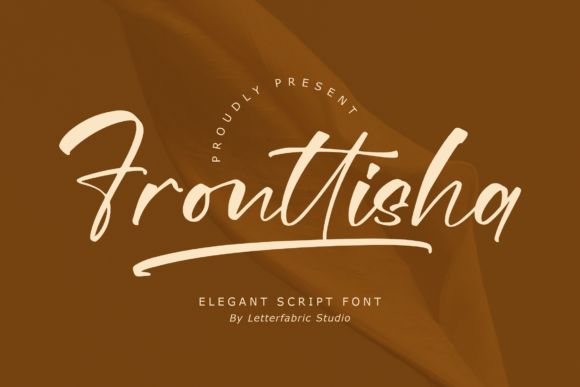
Step into the world of Fronttisha, a captivating script font that will leave you breathless. This elegant creation from Letterfabric Studio is not just a font; it's an experience that will transform your designs into works of art.
Fronttisha's delicate curves and graceful swashes evoke a sense of timeless sophistication. It's the perfect choice for branding projects, homeware designs, product packaging, and any other project where you want to add a touch of luxury and refinement.
Imagine your logo, etched in Fronttisha's flowing script, becoming an iconic symbol of your brand. Your homeware designs will exude elegance, your product packaging will demand attention on shelves, and your quotes and posters will become conversation starters.
Fronttisha is more than just a font; it's a versatile tool that empowers you to express your creativity in countless ways. Create stunning shopping bags that turn heads, design t-shirts that make a statement, or craft book covers that captivate readers.
The possibilities are endless with Fronttisha. Whether you're a designer, an artist, or simply someone who appreciates beauty, this font will unleash your imagination and transform your projects into masterpieces.
Don't settle for ordinary fonts that blend into the background. Choose Fronttisha, the font that will make your designs shine like never before.